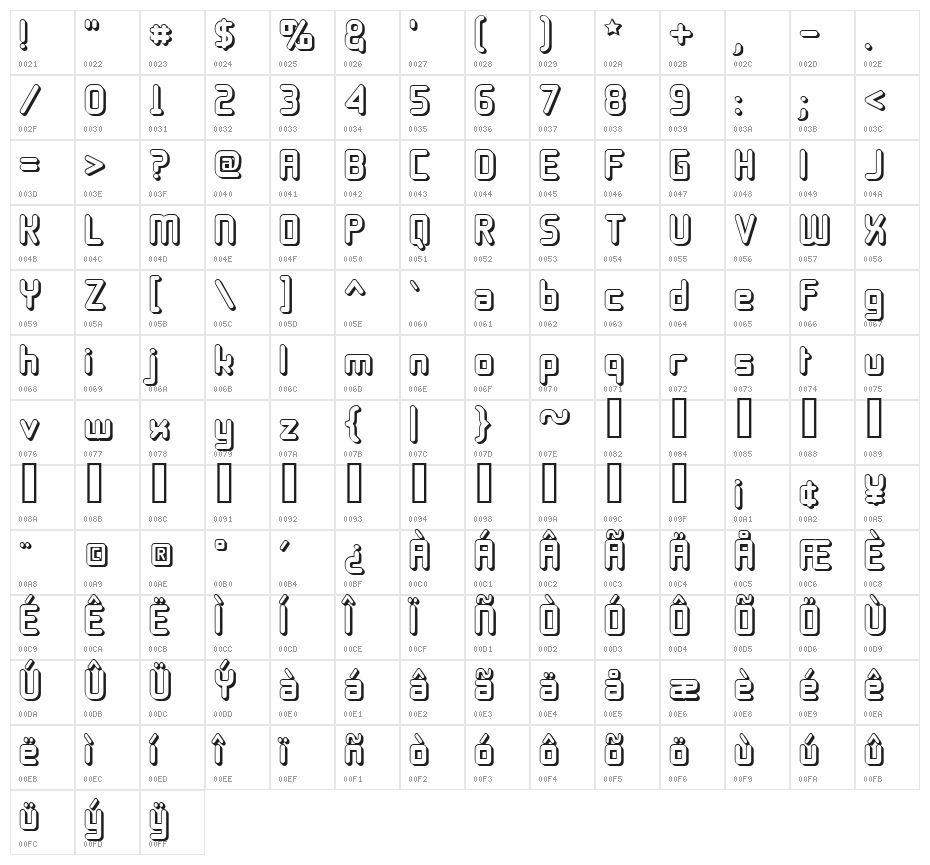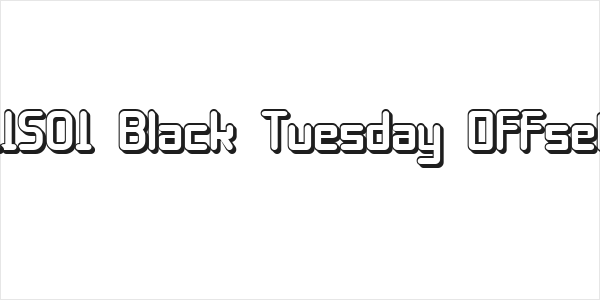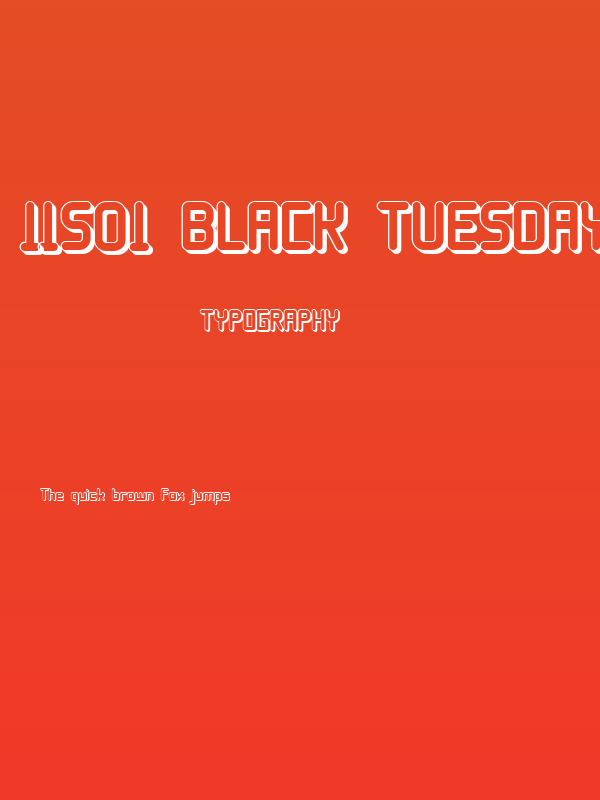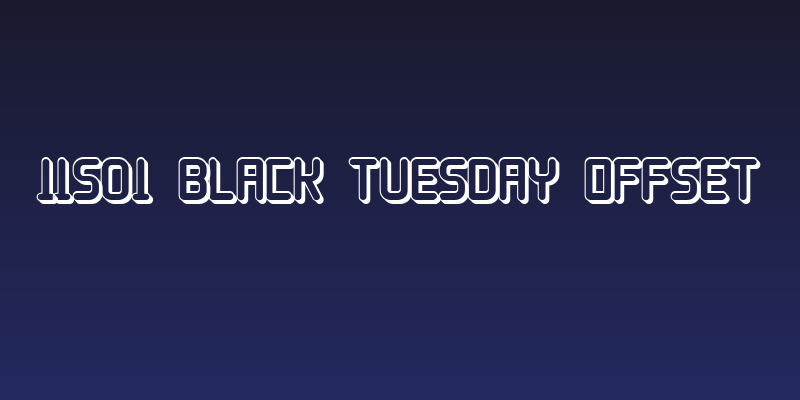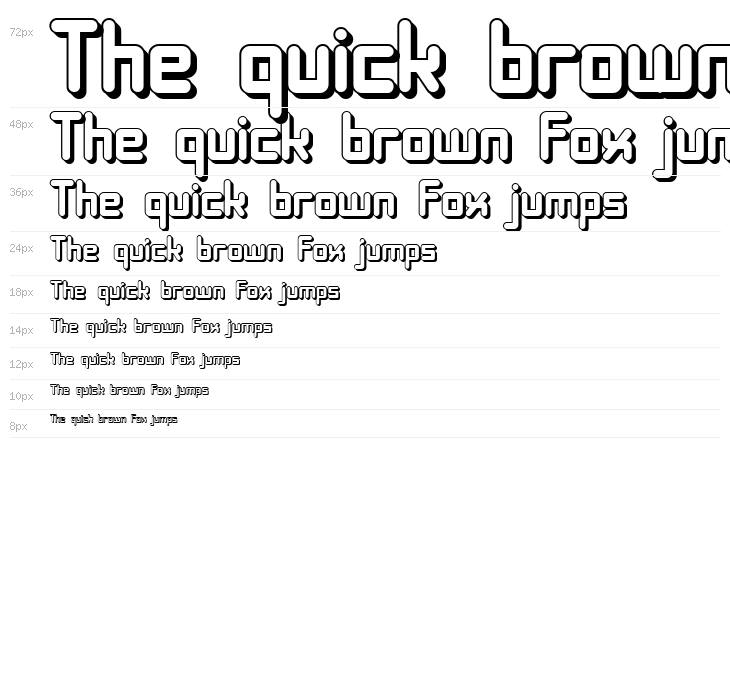
11S01 Black Tuesday Offset Font
11S01 Black Tuesday Offset Description
This font features a bold, geometric design with a distinct three-dimensional effect created by an offset shadow. The characters are uppercase and lowercase letters, numerals, and a variety of special symbols. Each letter is outlined with a thick border, giving it a strong presence and making it highly legible. The style is reminiscent of retro and futuristic themes, combining a sense of nostalgia with modern aesthetics. The uniformity in stroke width and the consistent shadow effect across all characters contribute to a cohesive and striking appearance.
| Overall Style | Retro, Futuristic |
| Proposed Projects | Ideal for retro-themed posters, video game graphics, and branding that requires a bold, eye-catching typeface. |